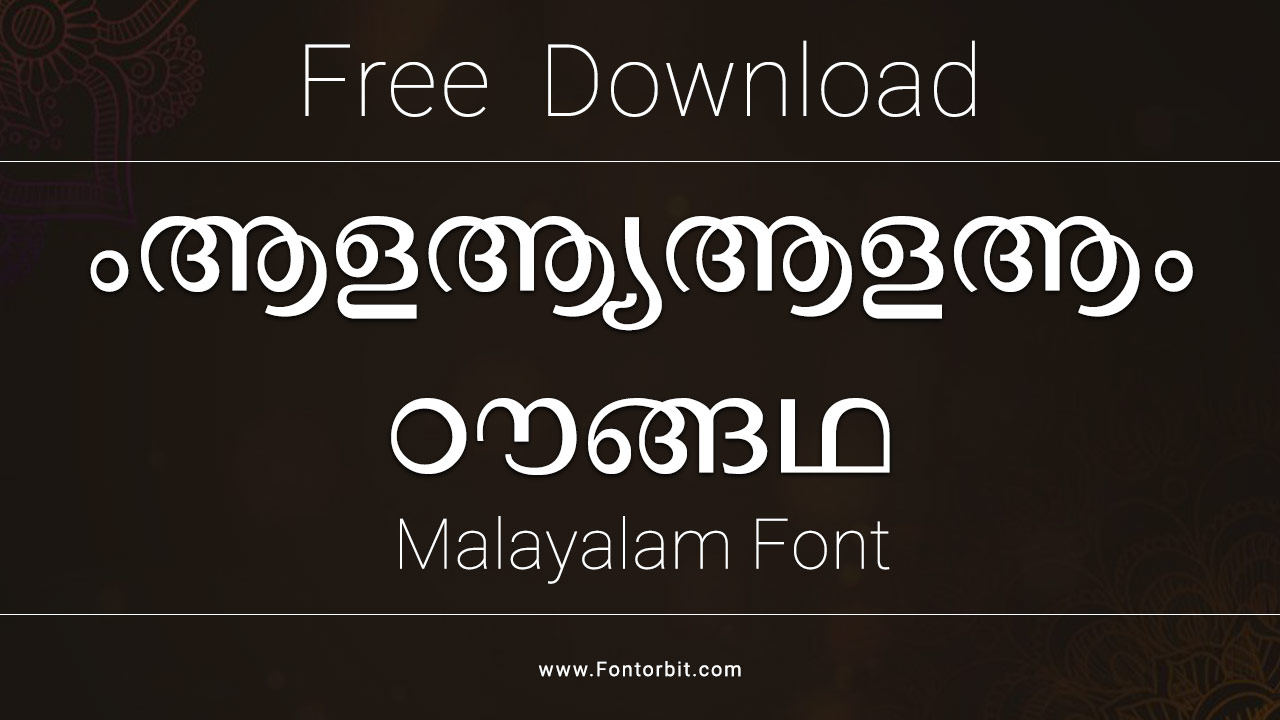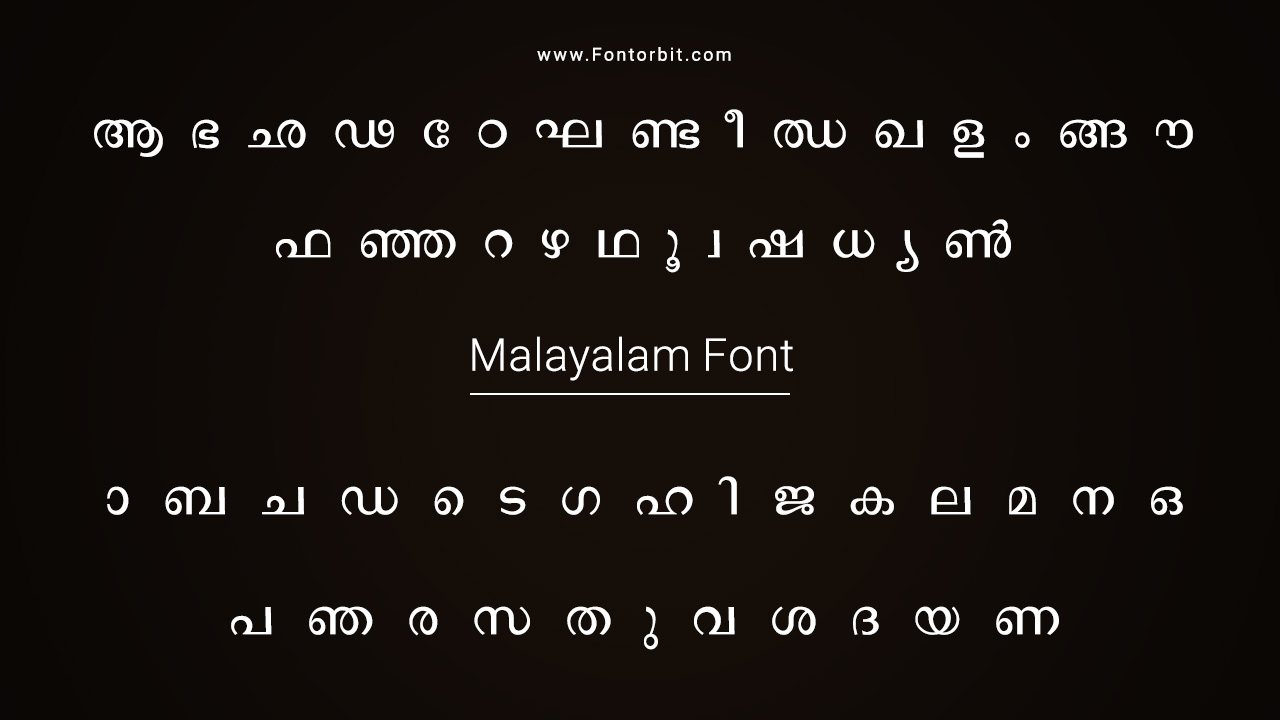
Unlock the beauty of Malayalam typography! Discover stunning Malayalam fonts for your projects, understand their unique features, and learn how to choose the perfect one for everything from logos and websites to creative writing. Find essential design tools and design inspiration.
Malayalam letters dance with grace, but finding the right font can sometimes feel like a quest. Whether you’re designing a vibrant logo, a readable website, or adding a personal touch to your digital content, the choice of your Malayalam font matters immensely. Poor choices can lead to clunky text that’s hard to read. But don’t worry! This guide is here to make it simple. We’ll walk you through the essentials, show you where to find gorgeous designs, and help you pick fonts that truly make your message shine.
Why Your Malayalam Font Choice Matters
The Malayalam script, with its beautiful curves and distinct characters, offers a rich canvas for typography. Choosing the right Malayalam font isn’t just about aesthetics; it’s about effective communication. A well-chosen font enhances readability, conveys the right tone, and strengthens your brand identity. Conversely, a poorly selected font can make your content appear unprofessional and difficult to engage with.
Think about it: A formal announcement needs a different font than a children’s storybook. A modern tech startup’s website requires a different feel than a traditional Kerala eatery. The right Malayalam font bridges the gap between your message and your audience, ensuring it’s received as intended.
Understanding Malayalam Script Fundamentals
Before diving into specific fonts, it’s helpful to understand a little about the Malayalam script itself. Malayalam is an abugida, meaning that consonant characters have an inherent vowel sound (usually ‘a’) which can be modified or suppressed using vowel signs. This system creates the distinctive ligatures and combinations that make Malayalam unique.
Key aspects to consider:
- Vowel Signs & Diacritics: These attach to consonants, significantly altering their sound. Good fonts render these symbols clearly and correctly.
- Ligatures: When consonants meet, they often form combined characters, called ligatures. A good font will have well-designed ligatures for smooth reading.
- Character Set Size: Ensure the font includes all necessary conjuncts and special characters for the Malayalam language.
- OpenType Features: Modern fonts often use OpenType features for advanced ligatures, stylistic alternates, and better character shaping, which is crucial for complex scripts like Malayalam.
Essential Malayalam Fonts for Design
When selecting a Malayalam font, you’ll often encounter a few categories that cater to different design needs. Here are some essential types and popular examples that form the backbone of Malayalam typography:
1. Classic & Traditional Fonts
These fonts often evoke a sense of heritage, tradition, and formality. They typically feature clear, well-defined strokes and a balanced structure, making them excellent for official documents, academic texts, and publications that aim for a timeless feel.
- Noto Sans Malayalam: Developed by Google, this font is designed to be a comprehensive and high-quality typeface for the Malayalam script. It’s known for its neutrality and excellent rendering across digital platforms. It’s part of the larger Noto font family aiming to support all languages.
- Latha: A very common and widely used Telugu font that people often confuse with Malayalam. It’s important to distinguish between scripts! For Malayalam, there isn’t a direct equivalent that’s as universally recognized, but fonts designed for readability and clarity in a traditional style are key.
- Keraleeyam: Often seen in print media, this font has a classic, slightly decorative feel while maintaining good readability.
2. Modern & Geometric Fonts
These fonts lean towards clean lines, precise geometry, and a contemporary aesthetic. They are perfect for branding, web design, and digital applications where a sleek, modern look is desired.
- Lohit-Malayalam: This is another robust option often found in Linux distributions, known for its clear, modern design and good rendering.
- Manjari: A popular choice for a clean, contemporary look, Manjari offers good readability for headlines and body text in digital and print contexts.
3. Display & Artistic Fonts
These are the fonts that make a statement. They are ideal for headlines, logos, posters, and any design element where you want to capture attention and convey a specific mood or personality.
- Chilanka: Known for its slightly calligraphic style, Chilanka can add a touch of artistic flair to your designs.
- Karuthal: This font often has a bolder, more expressive style, suitable for impactful headings.
4. Handwritten & Calligraphic Styles
For a personal, organic, or artisanal feel, handwritten and calligraphic Malayalam fonts are your go-to. They bring a human touch and can be excellent for branding that values craftsmanship, personal blogs, or unique invitations.
- Custom Calligraphy: Many designers commission custom calligraphy for unique brand identities, offering unparalleled originality.
- Artistic Script Fonts: Look for fonts that mimic the flowing strokes of traditional Kerala calligraphy; these can be incredibly striking.
Where to Find Stunning Malayalam Fonts
Discovering the perfect font is an exciting part of the design process. Fortunately, there are several excellent resources available, offering both free and paid options.
Free Font Resources
These platforms are great for beginners and those on a budget. They offer a wide selection of high-quality fonts that can be used for various projects.
- Google Fonts: While primarily known for Latin scripts, Google Fonts does offer some support for Indic scripts, including Malayalam. Noto Sans Malayalam, available here, is a standout option. Explore their offerings for free, high-quality, and widely compatible fonts.
- Font Squirrel: Although less common for Indic scripts, it’s worth checking periodically. Sometimes, designers release Noto fonts or other open-source options here.
- GitHub: Many open-source font projects, including those for Malayalam, are hosted on GitHub. Searching for “Malayalam font GitHub” can reveal hidden gems.
- IndiScript: This portal often links to various Indian language fonts, including Malayalam, many of which are free for personal and commercial use.
Paid Font Marketplaces
For unique, premium, or highly specialized Malayalam fonts, paid marketplaces are your best bet. These fonts often come with enhanced character sets, advanced OpenType features, and professional design quality.
- MyFonts: A vast repository of professional fonts. While its Malayalam selection might be smaller than for Latin scripts, you can find some beautifully crafted typefaces here.
- Fontspring: Similar to MyFonts, Fontspring offers licensed fonts for commercial use, often with flexible licensing options.
- Creative Market: A popular platform for independent designers. You can find unique, hand-crafted Malayalam fonts and calligraphy styles here.
- Specific Foundries: Some type foundries specialize in Indic scripts. Keep an eye out for designers or foundries that focus on regional Indian languages.
Choosing the Right Malayalam Font: A Step-by-Step Guide
Selecting the perfect Malayalam font can seem daunting, but following a structured approach will ensure you make the best choice for your project.
Step 1: Define Your Project’s Purpose and Audience
What is the text for? Is it a logo, website body text, a book title, a social media post, or marketing material?
Who are you trying to reach? Consider their age, literacy, and expectations. A formal audience might prefer traditional fonts, while a younger audience might respond to modern or expressive ones.
What is the desired tone? Do you want to convey seriousness, playfulness, elegance, or urgency?
Step 2: Prioritize Readability
For any text meant to be read, readability is paramount. This is especially true for Malayalam, where correct rendering of complex conjuncts and vowel signs is crucial.
Test with long sentences: See how the font performs with paragraphs, not just single words.
Check character spacing (kerning and tracking): Good spacing prevents letters from feeling too cramped or too far apart.
Ensure clear distinction between similar characters: Some Malayalam characters can look alike; a good font ensures they are distinct.
Step 3: Consider Legibility on Different Mediums
Web vs. Print: Fonts that look great on screen might not print as well, and vice-versa. For web use, ensure the font is web-safe or available as a web font. Tools like Google’s Noto Sans Malayalam are designed for excellent screen rendering.
Screen Resolution: Test how the font appears on different devices and screen resolutions.
Step 4: Evaluate Design & Style
Once readability is confirmed, focus on the aesthetic.
Does it match your brand or message? A quirky handwritten font won’t suit a corporate report.
Is it unique enough? If it’s for a logo, you might want something distinctive.
Are there enough stylistic variations? Some fonts offer bold, italic, and different weights, which can be useful for hierarchy.
Step 5: Check Licensing & Compatibility
Licensing: Ensure the font’s license permits your intended use (personal, commercial, web, print). Free fonts often have limitations.
Font Format: Common formats include TrueType (.ttf) and OpenType (.otf). OpenType is generally more advanced.
Software Compatibility: Make sure the font works with your design software (Adobe Photoshop, Illustrator, InDesign, Figma, etc.).
Step 6: Test, Test, Test!
Never settle for the first font you like.
Mockups: Create mockups of your design with a few shortlisted fonts.
Get Feedback: Ask colleagues or target audience members for their opinions.
A/B Testing: For websites or marketing materials, consider A/B testing different fonts to see which performs better.
Technical Considerations for Malayalam Fonts
Beyond visual appeal, certain technical aspects ensure your Malayalam font behaves correctly in digital environments.
Unicode Support
Malayalam characters are represented by Unicode code points. Ensure the font you choose fully supports the Unicode standard for Malayalam. This is fundamental for the script to be displayed accurately. Most reputable fonts will adhere to this.
OpenType Features
Advanced fonts utilize OpenType features for sophisticated text rendering. For Malayalam, these can include:
Contextual Ligatures: Automatically forming correct combined characters based on character context.
Stylistic Alternates: Offering different visual interpretations of characters or conjuncts.
Diacritic Positioning: Ensuring vowel signs and other marks are positioned accurately relative to consonants.
The implementation of these features can significantly impact the quality and fluency of the Malayalam text. Reliable font sources often detail the OpenType features they support.
Rendering Engines
How a font is displayed also depends on the operating system’s text rendering engine (like Harfbuzz for many Linux/Android systems, or Uniscribe/DirectWrite for Windows). Choosing widely tested fonts like Noto Sans Malayalam ensures better compatibility across different platforms. The Unicode chart for Malayalam shows the standard characters that a font should support.
Comparing Popular Malayalam Font Styles
To better illustrate the differences, let’s compare a few hypothetical font styles based on common design attributes.
| Font Style | Primary Use Case | Readability | Aesthetics | Example Characteristics | Best For |
| Traditional Serif| Books, official documents, heritage | High | Formal, Classic | Clear serifs, balanced stroke width, traditional letterforms | Academic papers, legal texts, historical content, formal invitations |
| Modern Sans-Serif| Websites, apps, branding | Very High | Clean, Minimalist | Geometric shapes, uniform stroke width, no serifs | Tech startups, modern businesses, user interfaces, general web content |
| Display/Headline | Logos, posters, titles | Moderate | Bold, Unique | Large x-height, distinctive details, expressive forms | Branding, advertising, event posters, book covers |
| Handwritten/Script| Artisanal branding, personal blogs | Variable | Organic, Personal | Flowing strokes, varied weight, calligraphic feel | Craft businesses, wedding invitations, diaries, creative portfolios |
Note: “Readability” here refers to general ease of reading blocks of text. “Aesthetics” describes the overall visual impression.
Tools for Working with Malayalam Fonts
Once you’ve selected a font, you’ll need tools to implement it effectively in your designs.
Font Management Software
FontBase: A free font manager that helps you organize, preview, and activate fonts on your system.
Suitcase Fusion: A professional-grade font manager for creative teams.
Built-in OS Font Management: Both Windows and macOS have basic font book applications to install and view fonts.
Design Software
Adobe Creative Suite (Photoshop, Illustrator, InDesign): Industry-standard tools offering robust typographic controls.
Affinity Suite (Designer, Photo, Publisher): A powerful and more affordable alternative to Adobe.
Figma: A popular web-based tool for UI/UX design with good typography support.
Microsoft Word/Google Docs: For simpler document creation and writing tasks where readability is key.
Online Font Previews
Fontjoy: While primarily for English fonts, you can sometimes preview single characters or test if a font’s structure works for Malayalam by typing it in compatible fields.
Specific Font Websites: Many font foundries and marketplaces offer online preview tools where you can type in your own text to see how it looks in a particular font.
Common Pitfalls to Avoid
Navigating Malayalam typography comes with its own learning curve. Being aware of common mistakes can save you a lot of trouble.
Using pixelated or low-quality fonts: This is especially noticeable when text is scaled up. Always use vector-based fonts or high-resolution bitmap fonts.
Incorrect character rendering: This is the most critical issue. If conjuncts or vowel signs are missing or misplaced, the text becomes illegible and unprofessional. This often happens if the font doesn’t fully support Unicode or has poor Khmer character shaping algorithms.
Mixing too many font styles: While variety can be good, using more than 2-3 different Malayalam fonts in one document can create visual chaos.
Ignoring licensing: Using copyrighted fonts without proper licensing for commercial projects can lead to legal issues.
Choosing a font solely on appearance: Always balance aesthetics with readability and suitability for the medium.
FAQ: Your Malayalam Font Questions Answered
What is the most popular Malayalam font?
There isn’t one single “most popular” font as usage varies by purpose. However, Google’s Noto Sans Malayalam is incredibly popular and recommended due to its excellent readability, wide character support, and free availability across digital platforms.
Can I use Malayalam fonts on my website?
Yes, absolutely! Ensure you use web fonts (like .WOFF or .WOFF2 formats) that are compatible with web browsers. Google Fonts provides web-ready Malayalam fonts like Noto Sans Malayalam that are easy to implement using CSS.
Are there free Malayalam fonts for commercial use?
Yes, many fonts released under open-source licenses, such as those found via Google Fonts or on GitHub (like Lohit-Malayalam), can be used for commercial purposes. Always check the specific license details for each font.
How do I install a Malayalam font?
Once downloaded, you can typically install a font by double-clicking the font file (.ttf or .otf) and clicking “Install,” or by dragging the file into your operating system’s font folder (e.g., `C:WindowsFonts` on Windows or `~/Library/Fonts` on macOS).
What makes a Malayalam font “display” style?
Display style Malayalam fonts are designed for impact and are typically used for headlines, titles, or logos. They often have unique, decorative, or bold characteristics that might not be ideal for long paragraphs of text but excel at grabbing attention.
How can I ensure my Malayalam text looks good on all devices?
Use widely compatible, well-designed fonts like Noto Sans Malayalam. Test your designs on various screen sizes and devices. For web, using CSS for font rendering and ensuring responsive design principles are applied will help.
Conclusion: Crafting with Confidence
The journey into Malayalam typography is a rewarding one, opening doors to visually rich and culturally resonant designs. From understanding the nuances of the script itself to exploring the vast array of stunning fonts available, you now have a clearer path forward.
Remember, the key lies in balancing aesthetic appeal with functional clarity. Whether you’re crafting a brand identity, designing a website, or composing a personal project, take the time to choose a Malayalam font that not only looks beautiful but also communicates your message with precision and grace. By leveraging the resources and techniques discussed, you’re well-equipped to make confident, impactful design choices that truly capture the essence of the Malayalam language. So go forth, experiment, and create something wonderful!